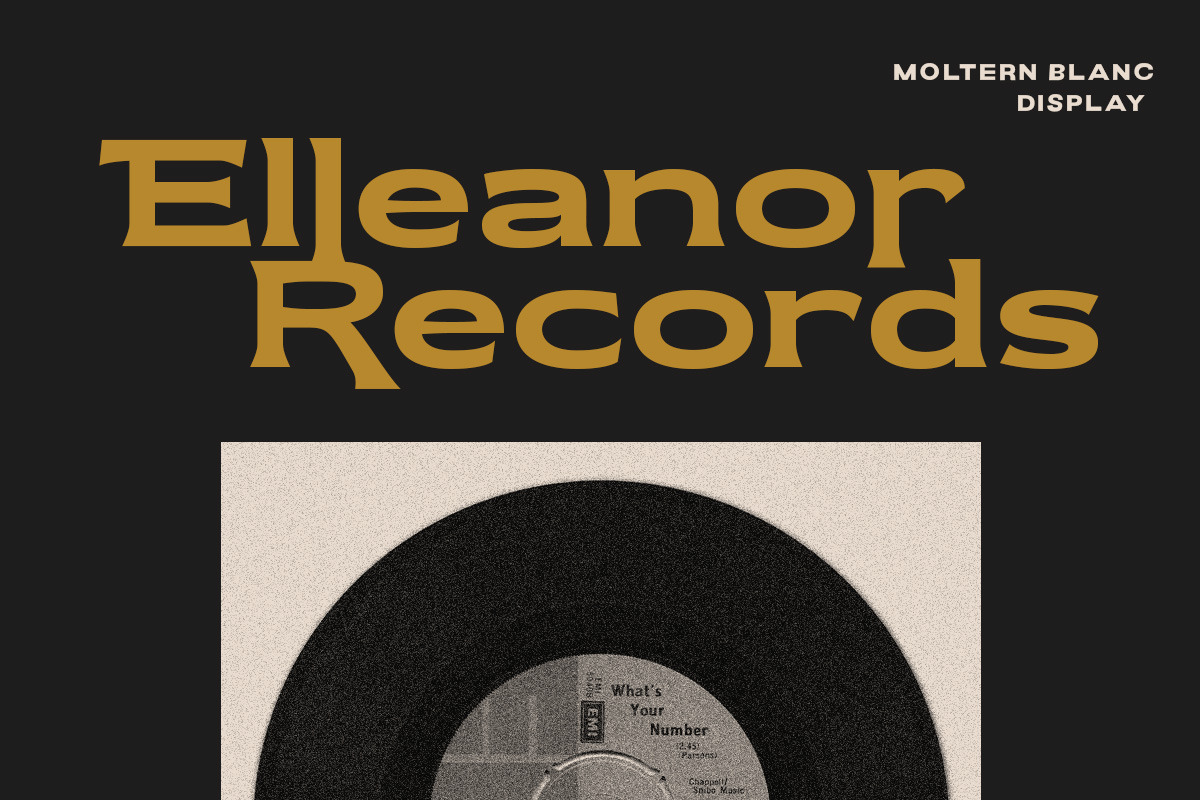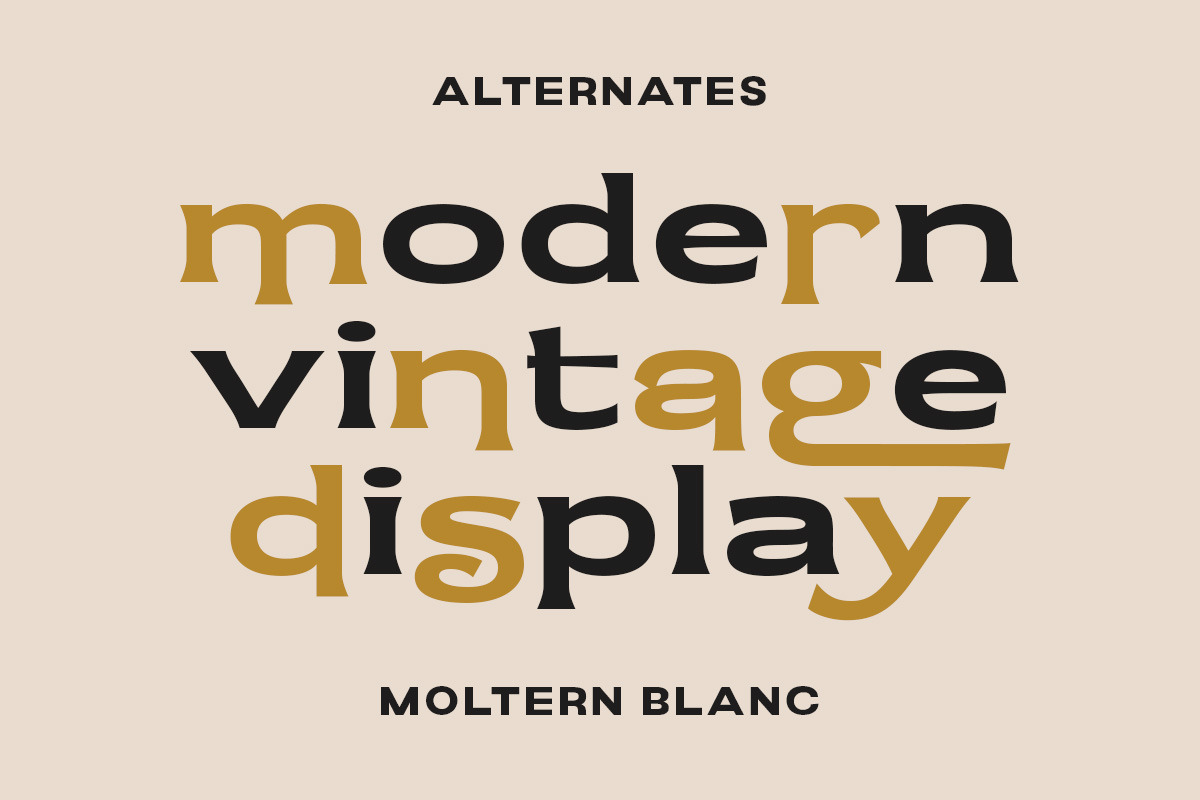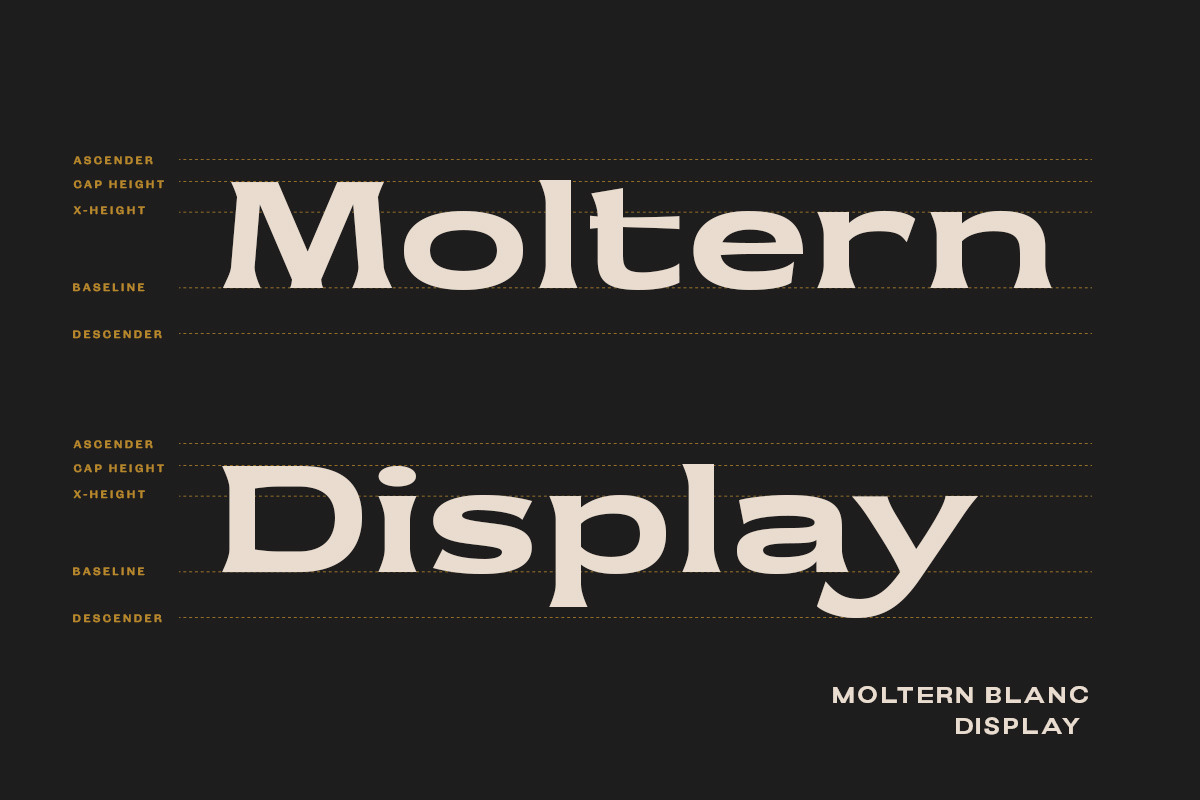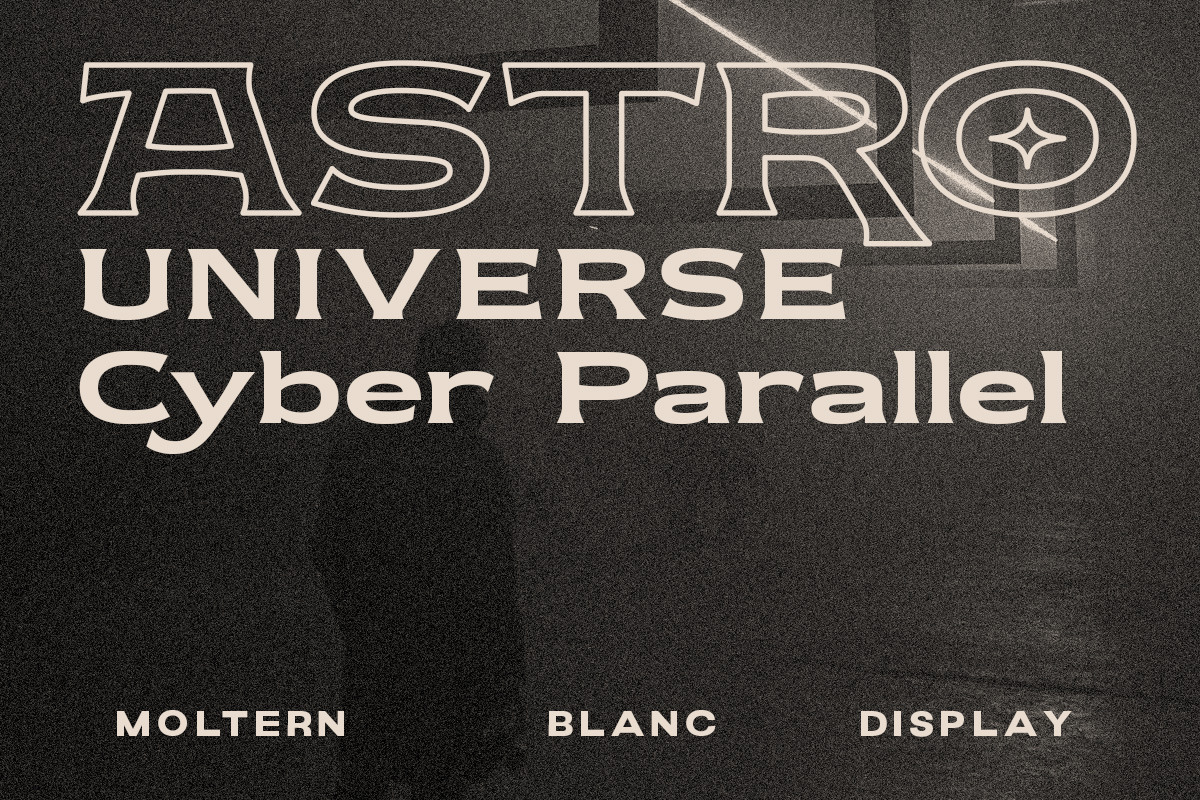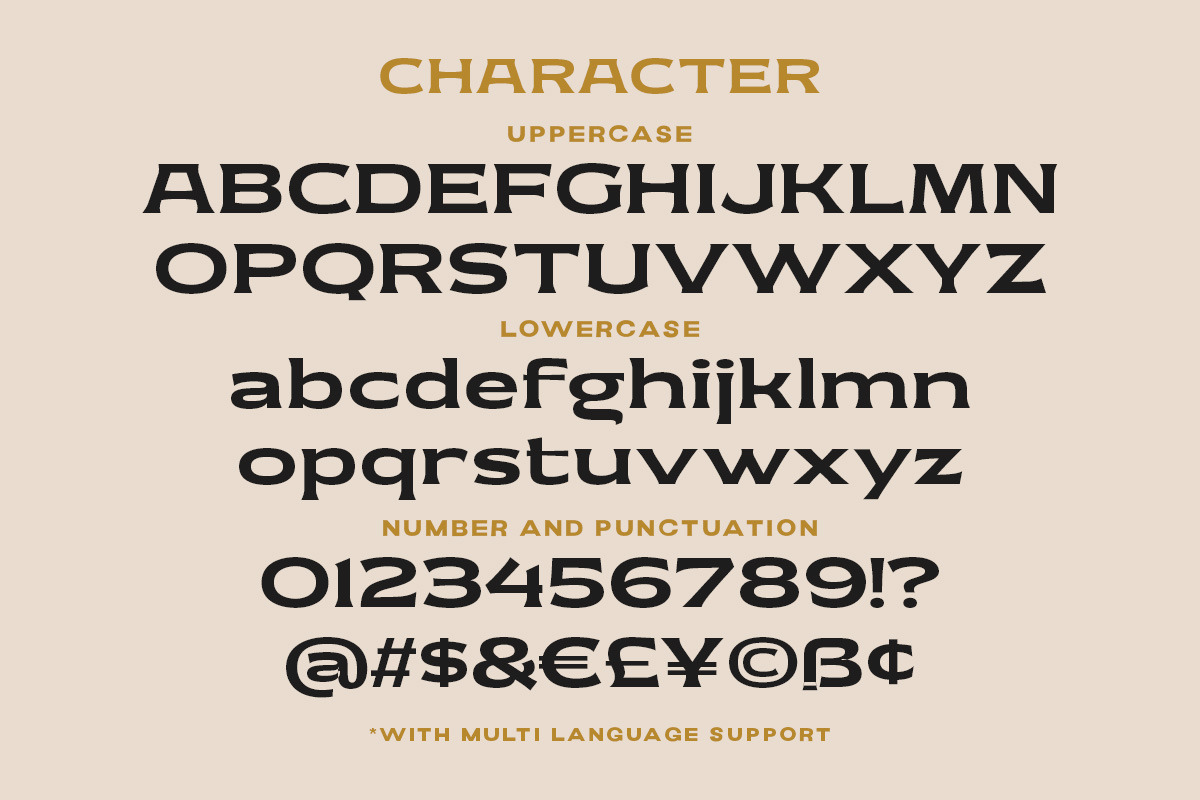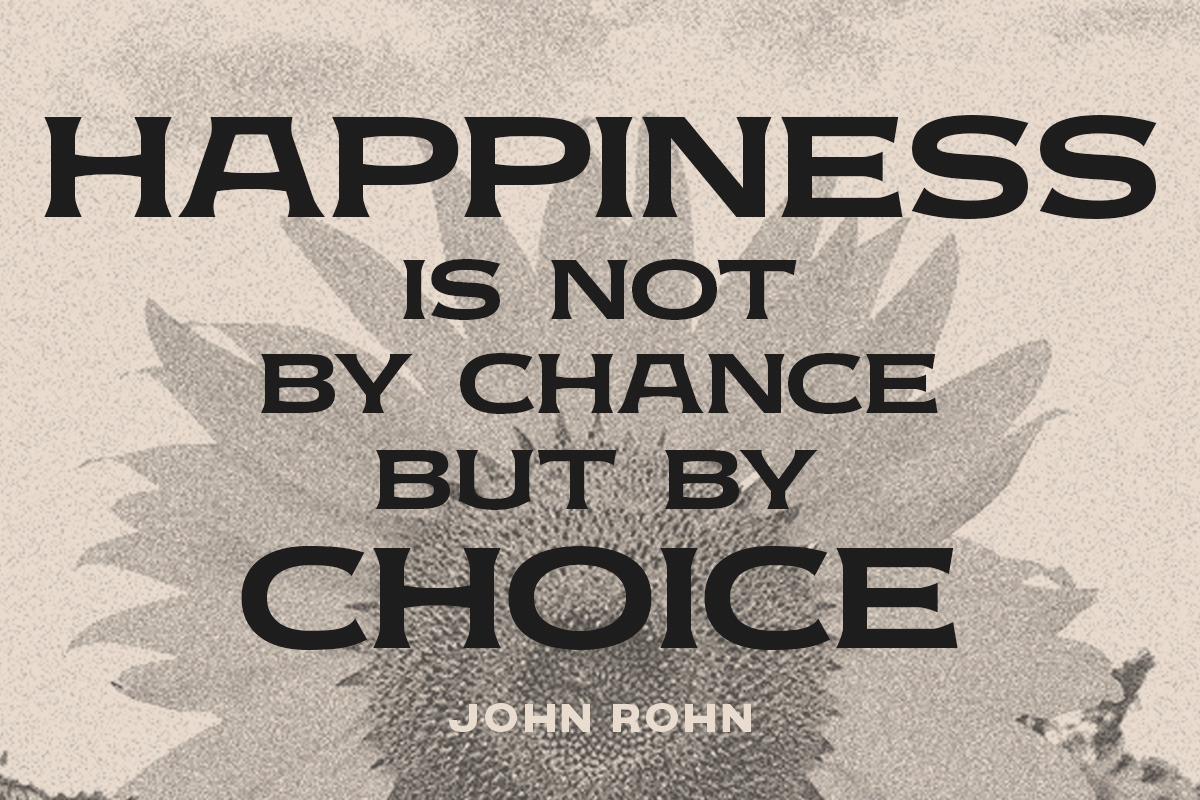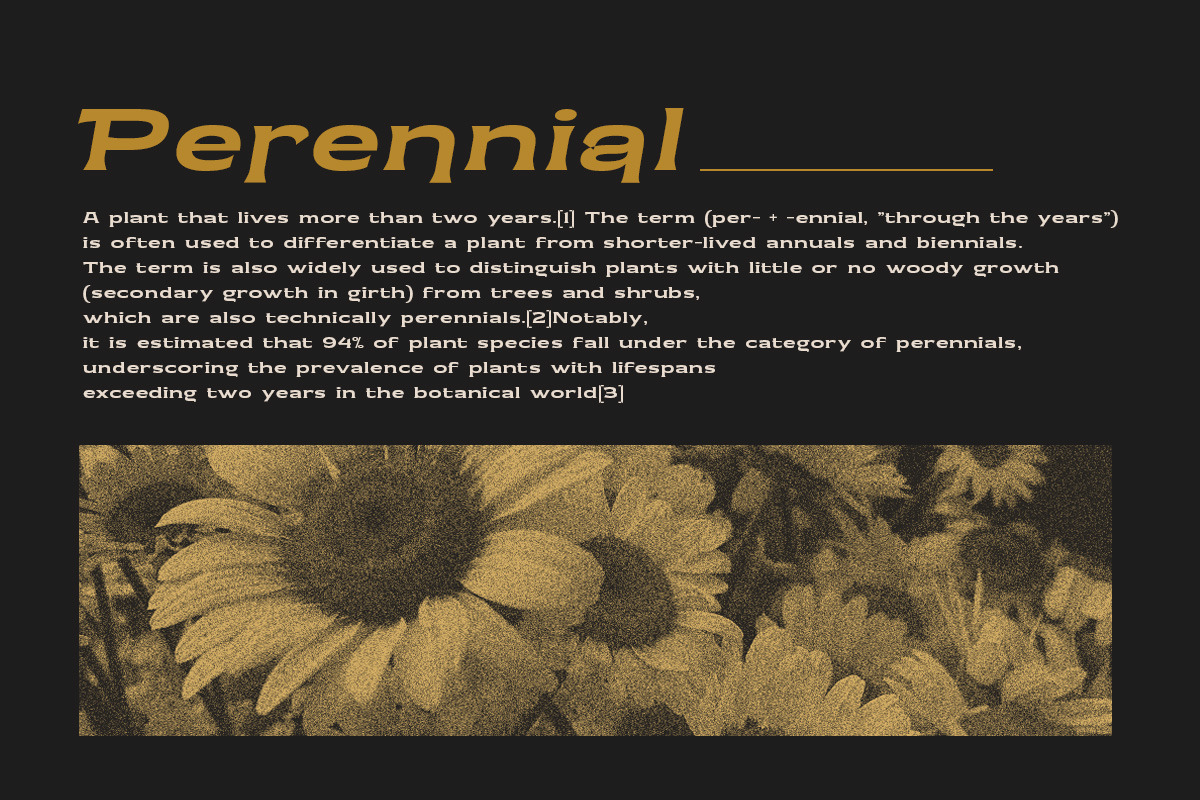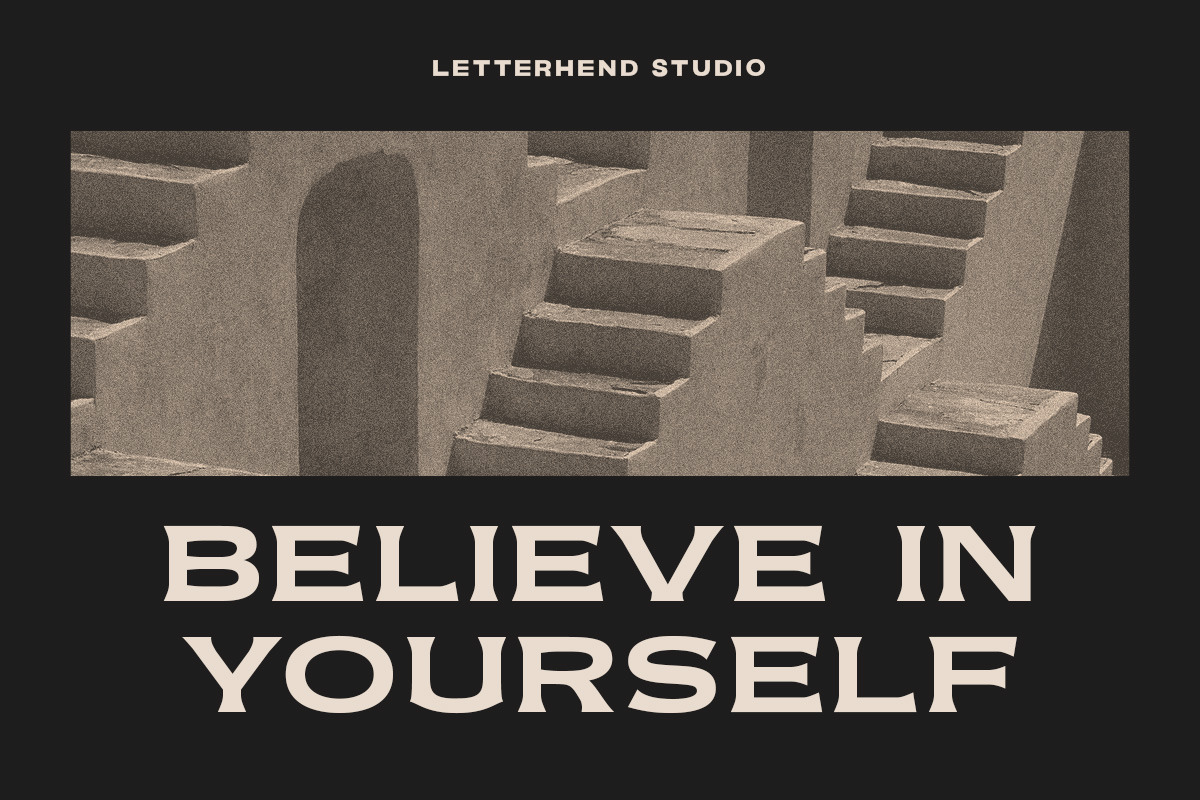
Moltern Blanc - Vintage Display Fon
Moltern Blanc is a classy vintage display font. It's inspired by modern feels and classic looks. This font perfectly made to be applied especially in logo, and the other various formal forms such as invitations, labels, logos, magazines, books, greeting / wedding cards, packaging, fashion, make up, stationery, novels, labels or any type of advertising purpose